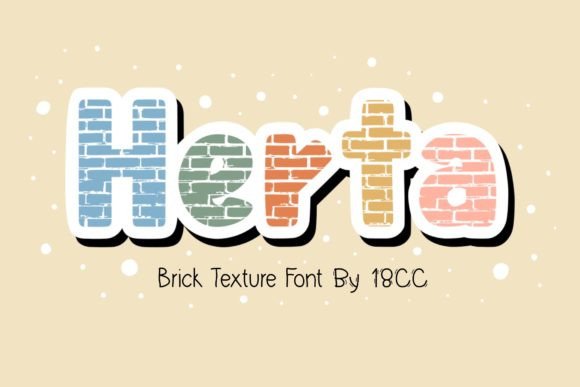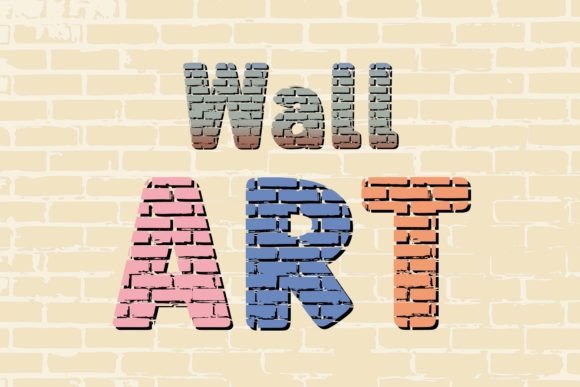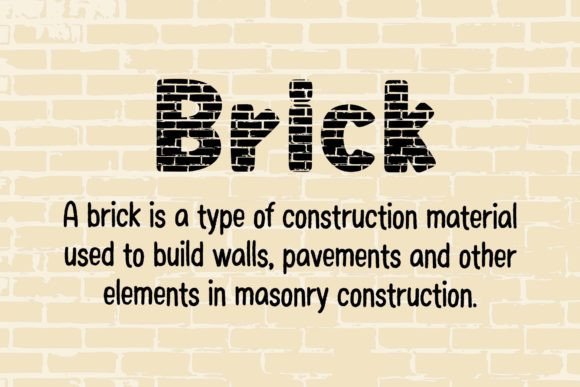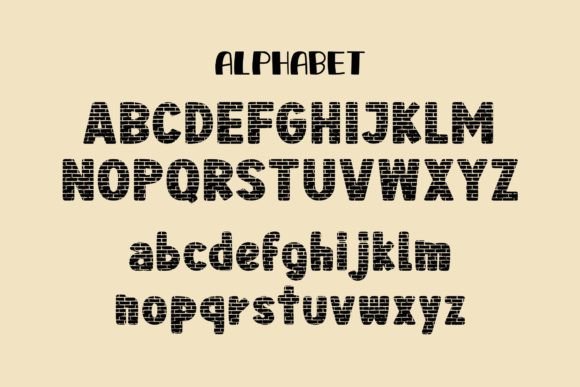
Herta Font: A Cute Brick Display Font for Creative Social Media Design
About the Herta Font
Unleash your creativity with Herta Font, a versatile font perfect for a wide range of applications. Herta is an interesting decorative font featuring cute brick-styled characters for an awesome look! Use this creative typeface for construction companies, marketing materials, social media posts, and others!
Herta’s playful, almost childlike energy makes it ideal for projects targeting a young demographic or conveying a sense of fun and approachability. It works exceptionally well in headlines, short slogans, and playful branding elements, such as logos for children’s products or quirky businesses. Consider it for posters, social media graphics, and packaging where a bold, attention-grabbing design is desired. However, its decorative nature makes it unsuitable for body text or UI elements requiring high readability.
For effective pairings, consider pairing Herta with a clean sans-serif like Open Sans for readability in supporting text or a more geometric sans-serif like Futura for a modern contrast. A classic serif like Garamond can also create a pleasing balance, softening Herta’s playful edge while maintaining visual interest. Avoid pairing it with other decorative fonts, as this would likely result in visual clutter.
Ultimately, Herta’s strength lies in its ability to inject a dose of charming unconventionality. Use it strategically to highlight key elements and create memorable visual impact within a design, ensuring readability remains a priority through careful font pairing and placement.